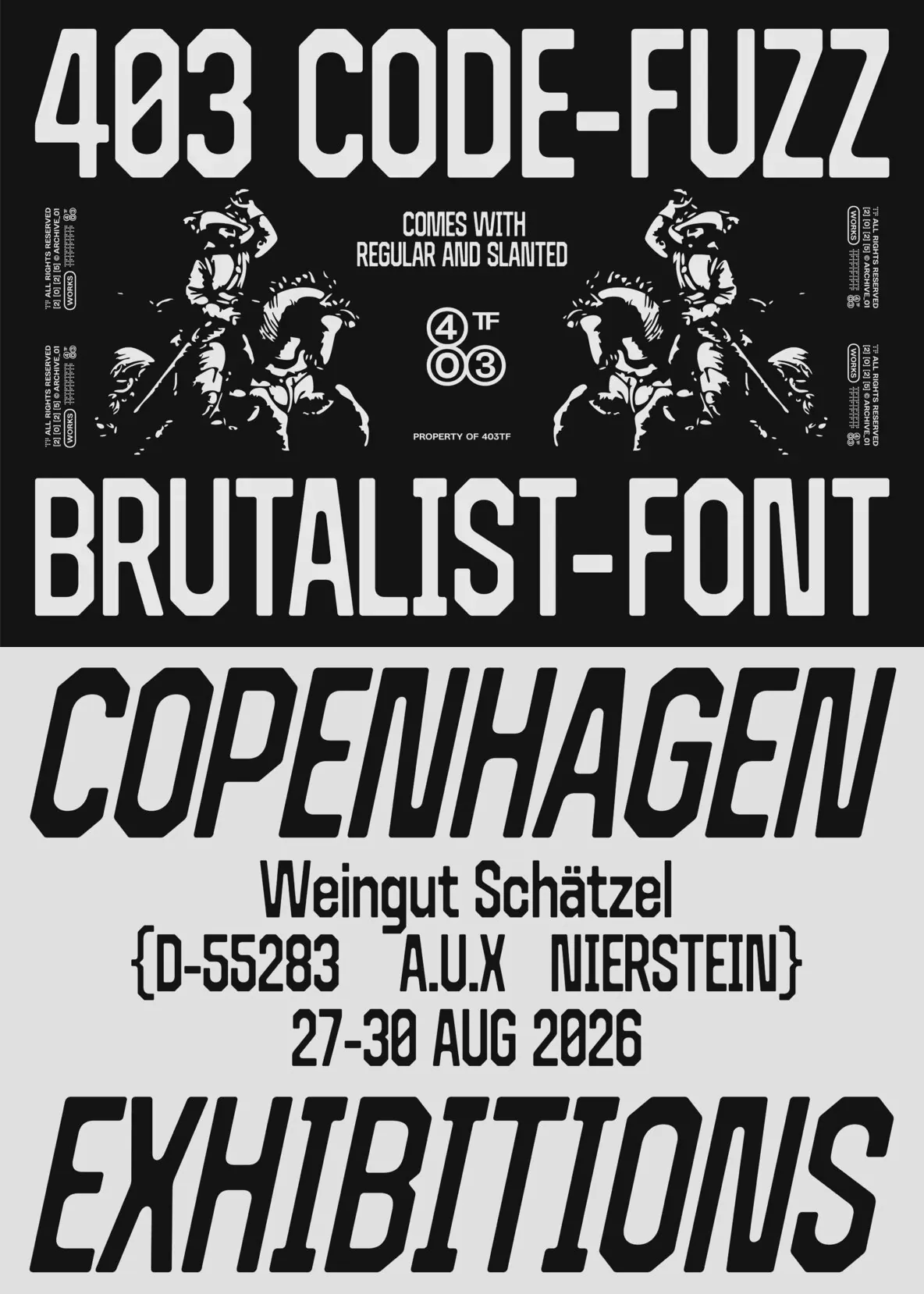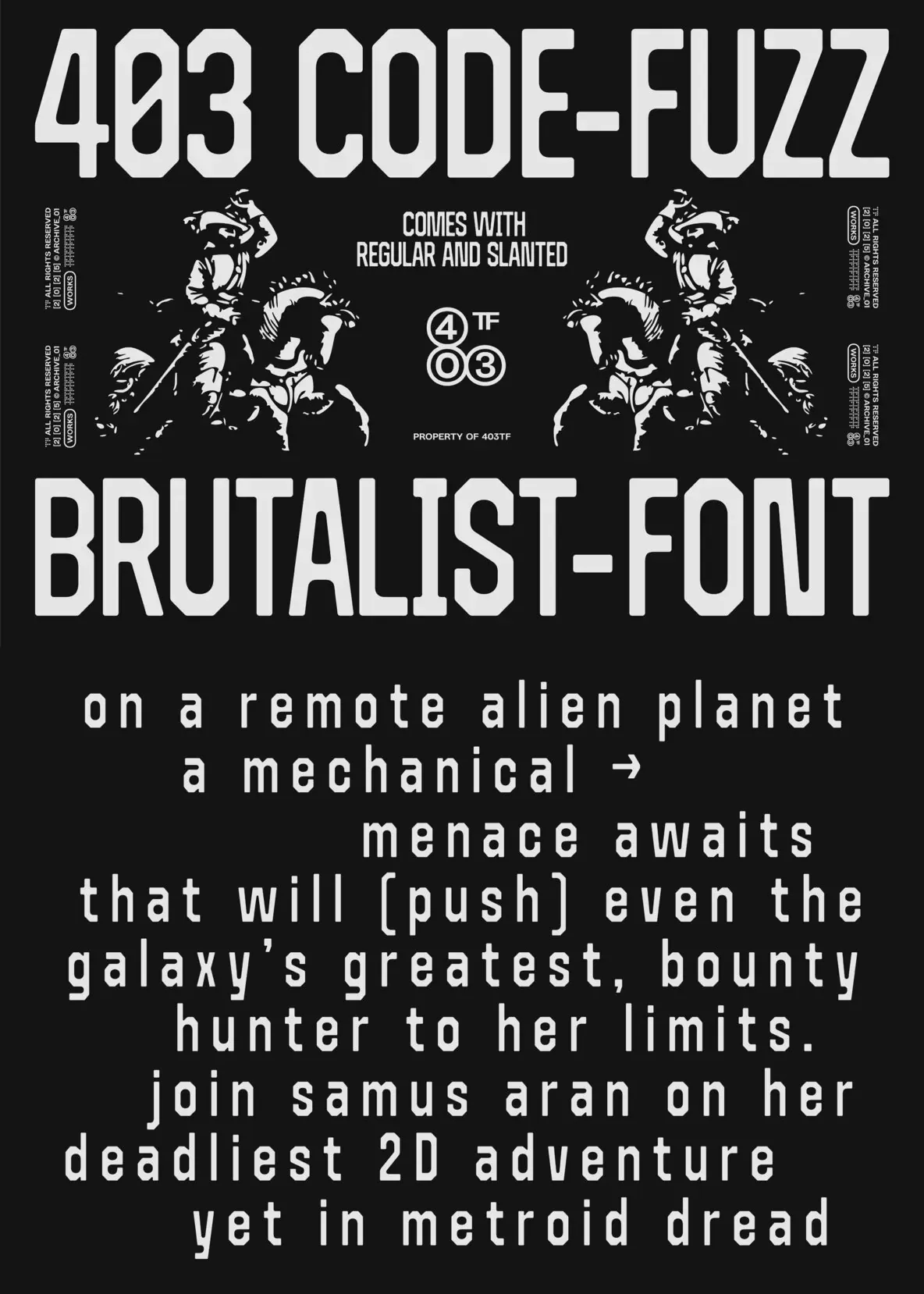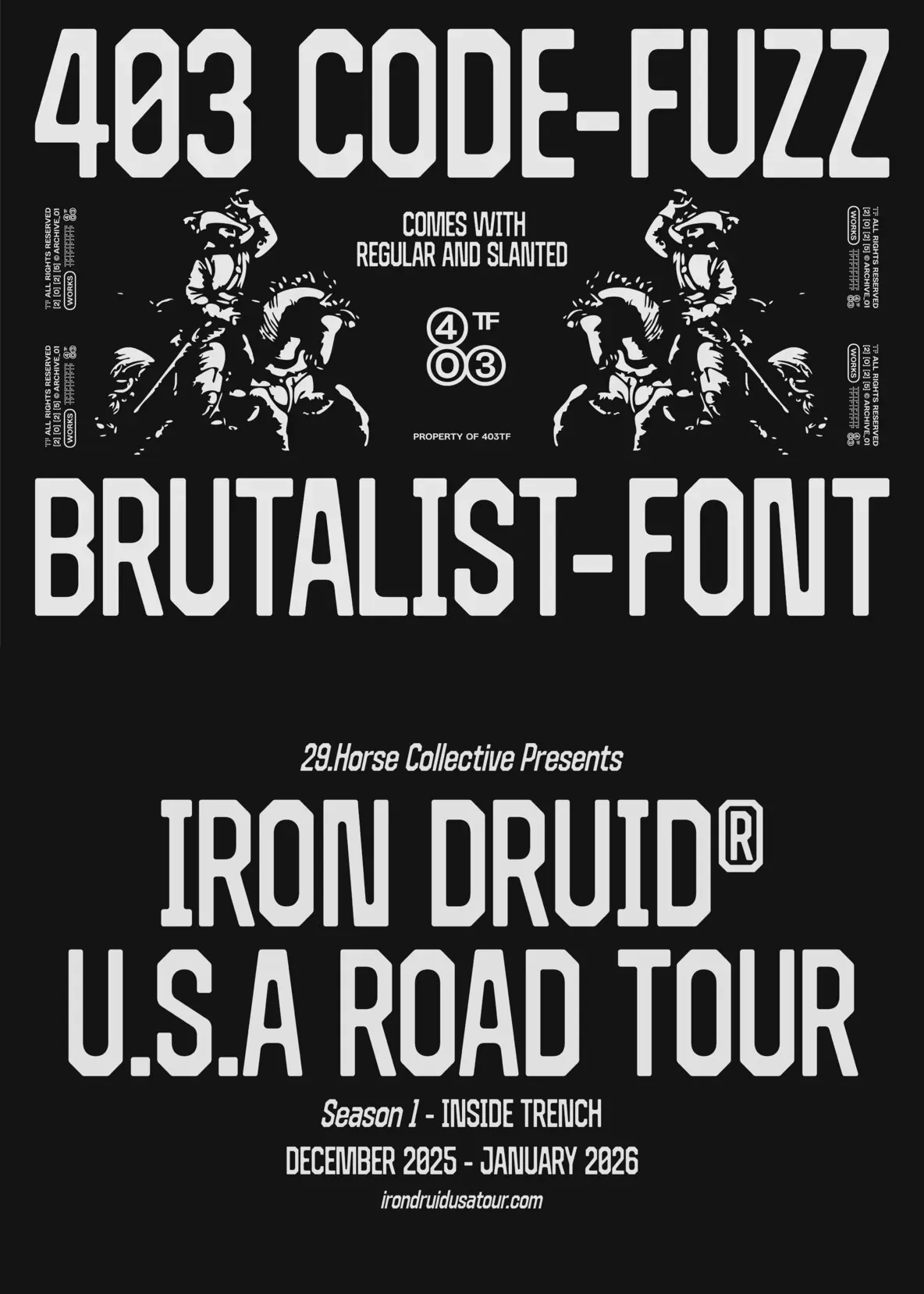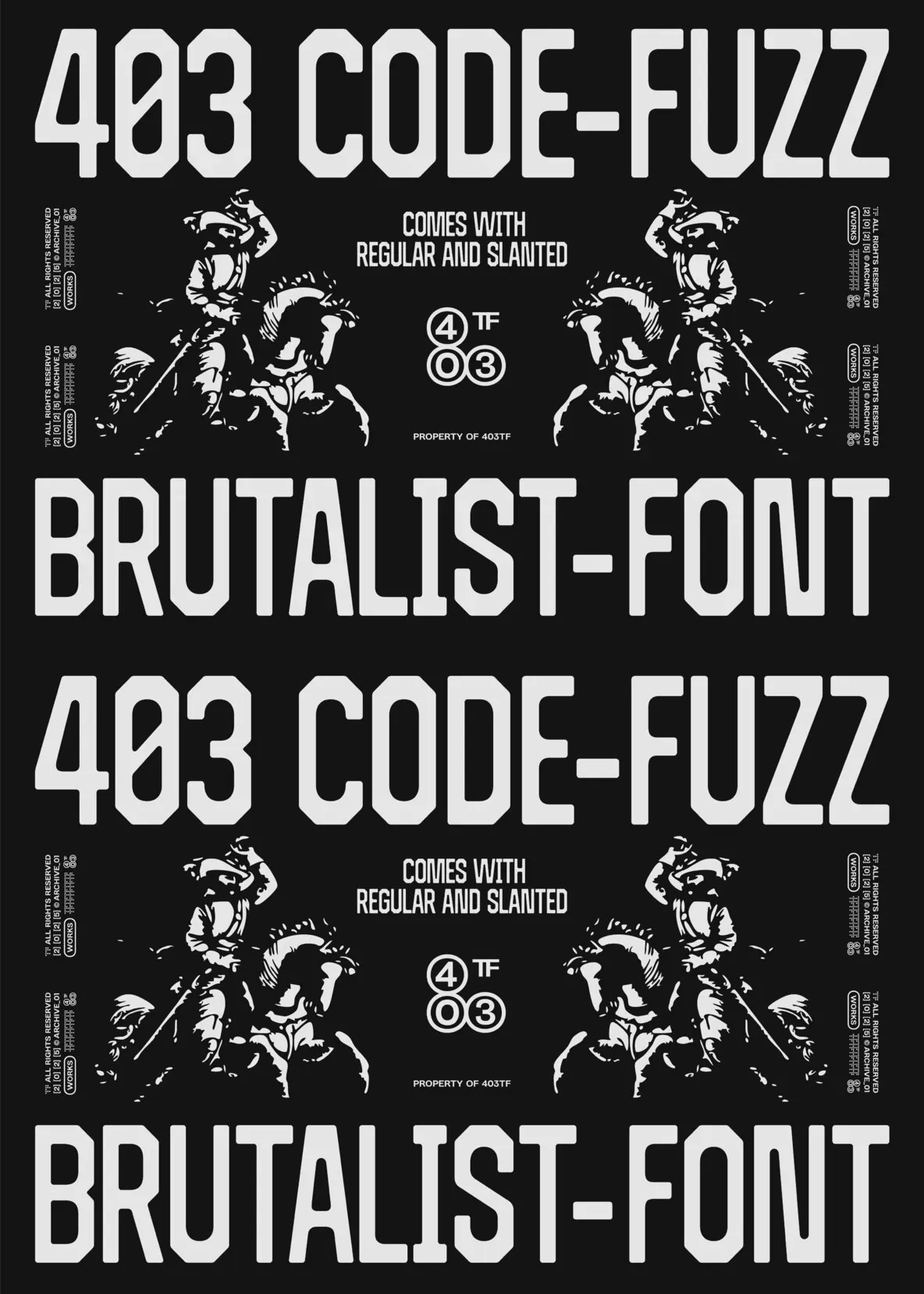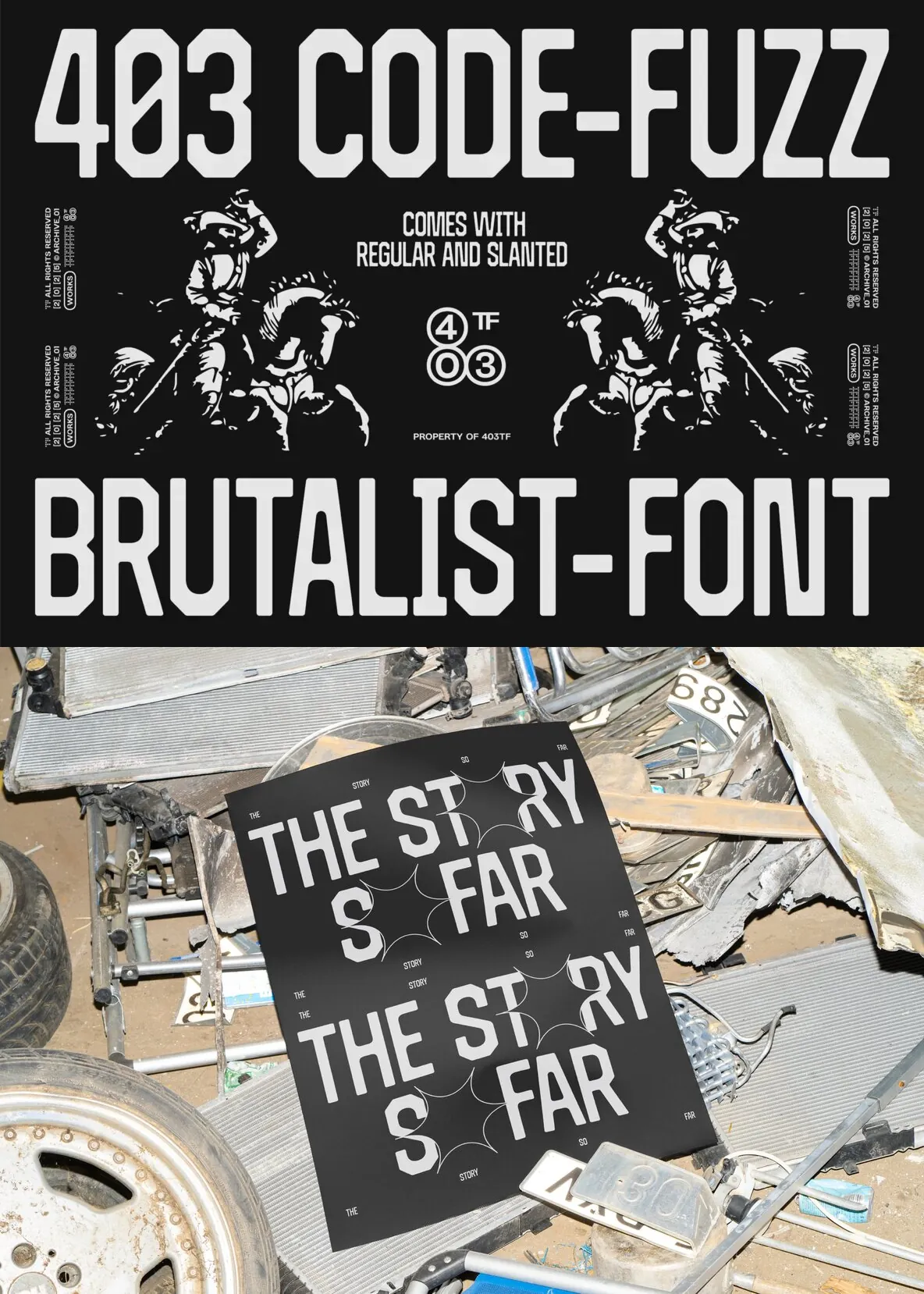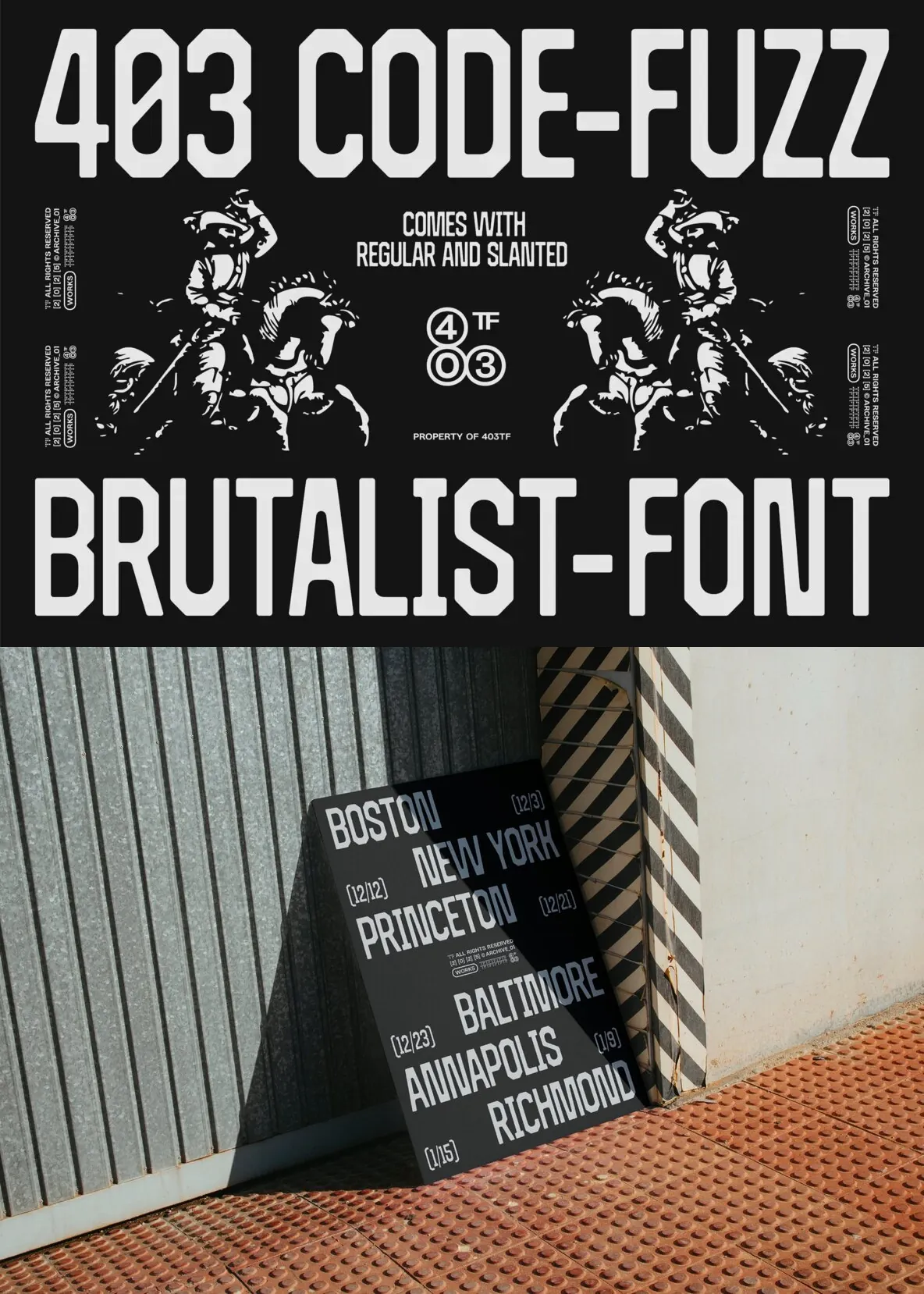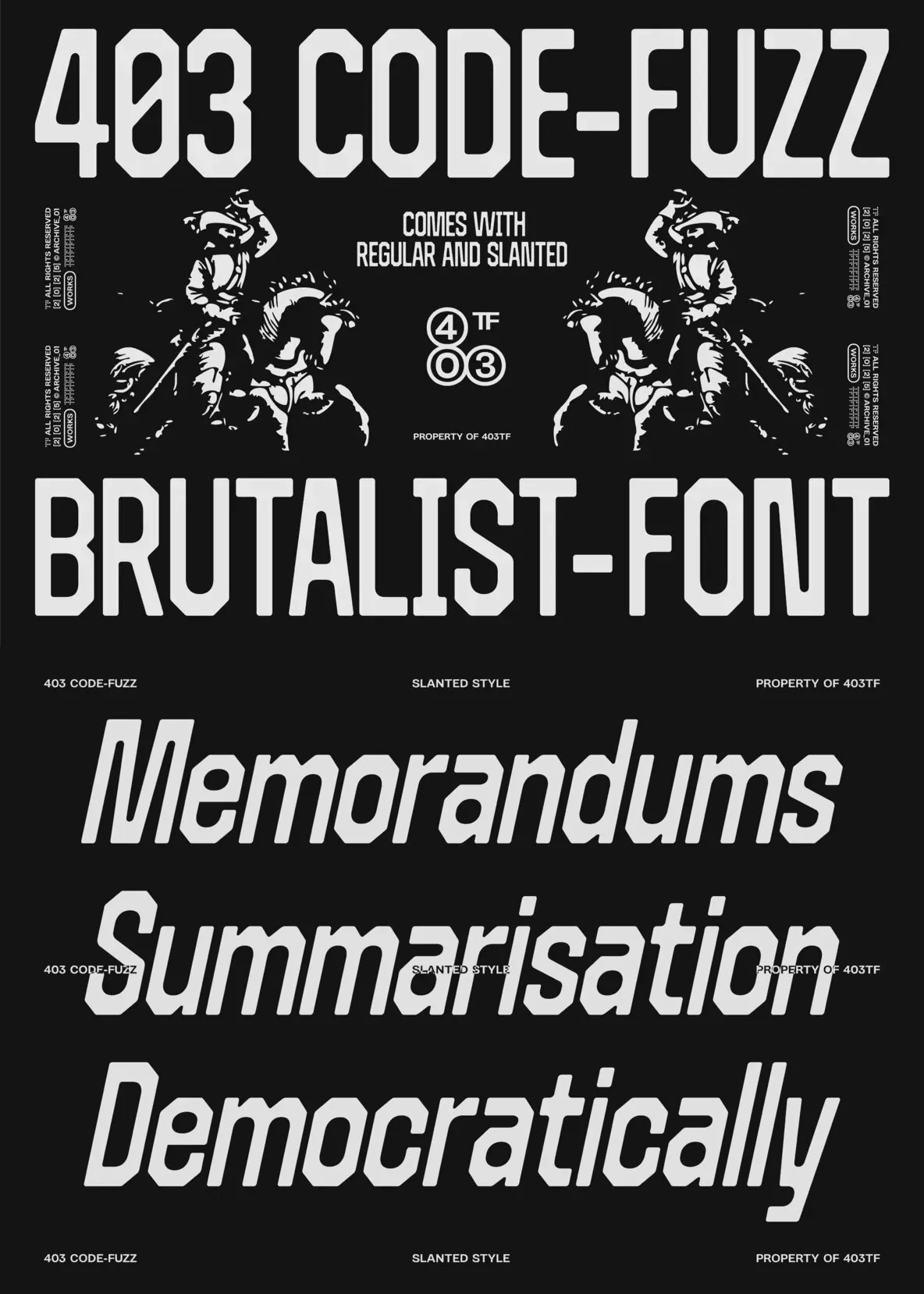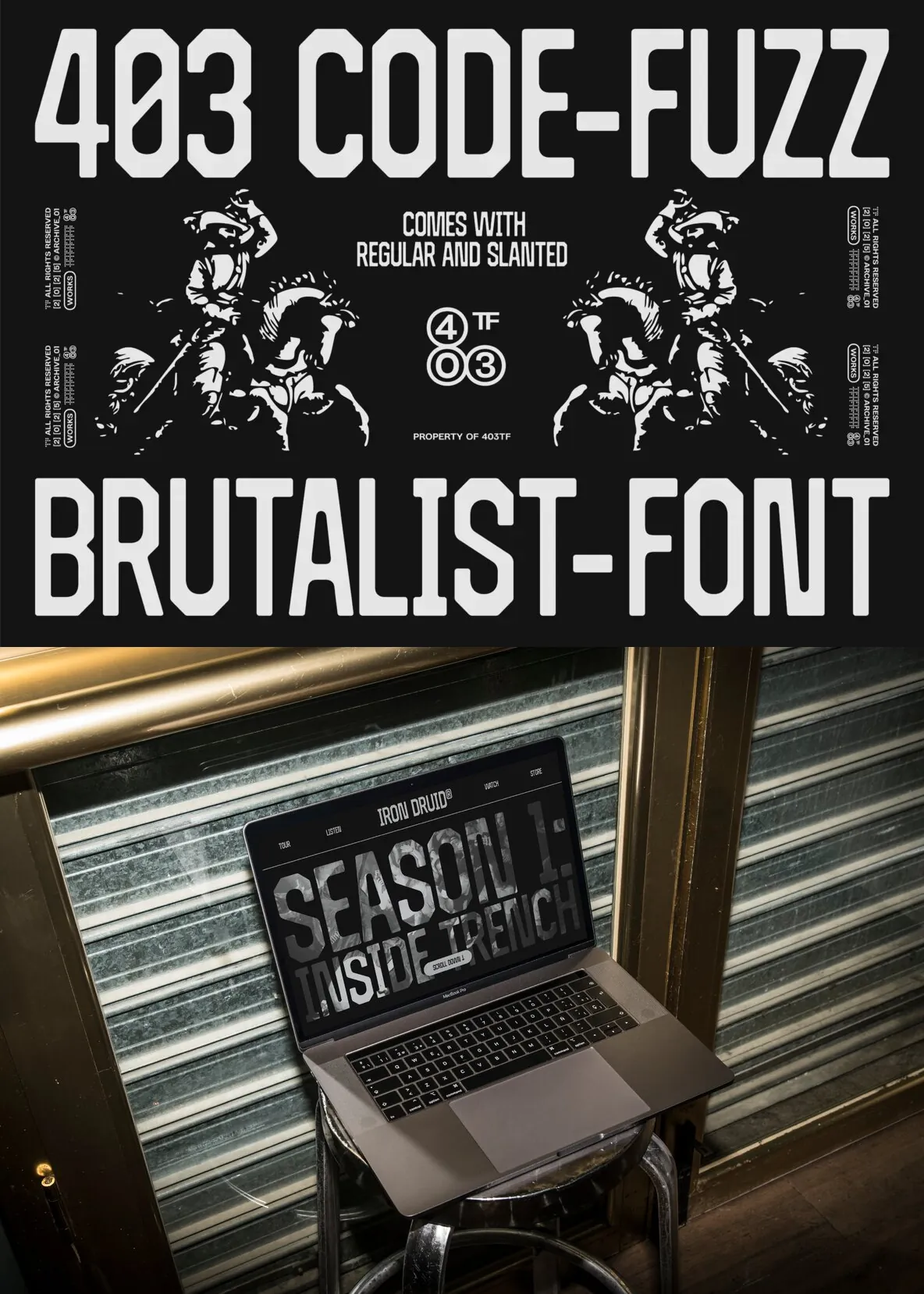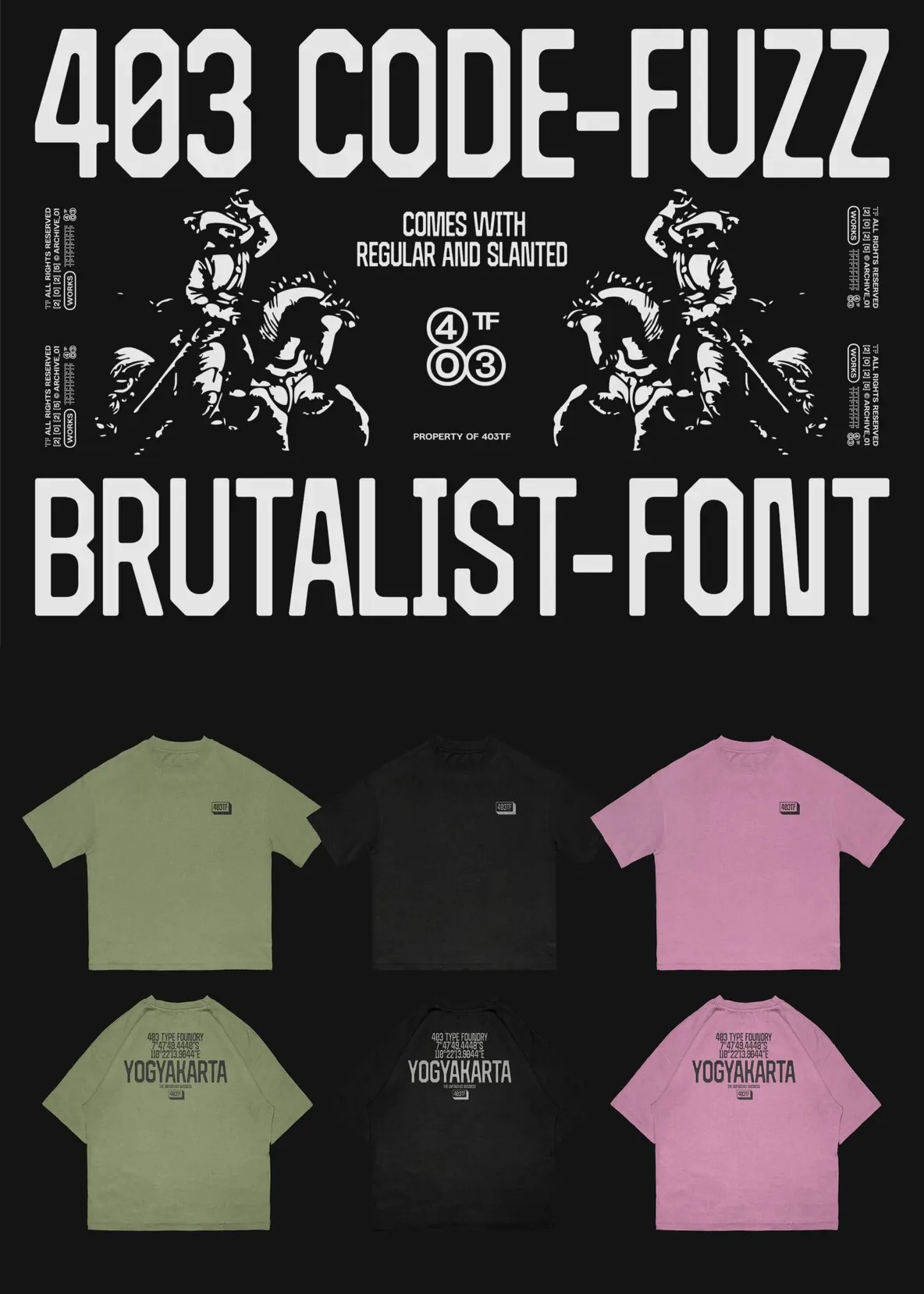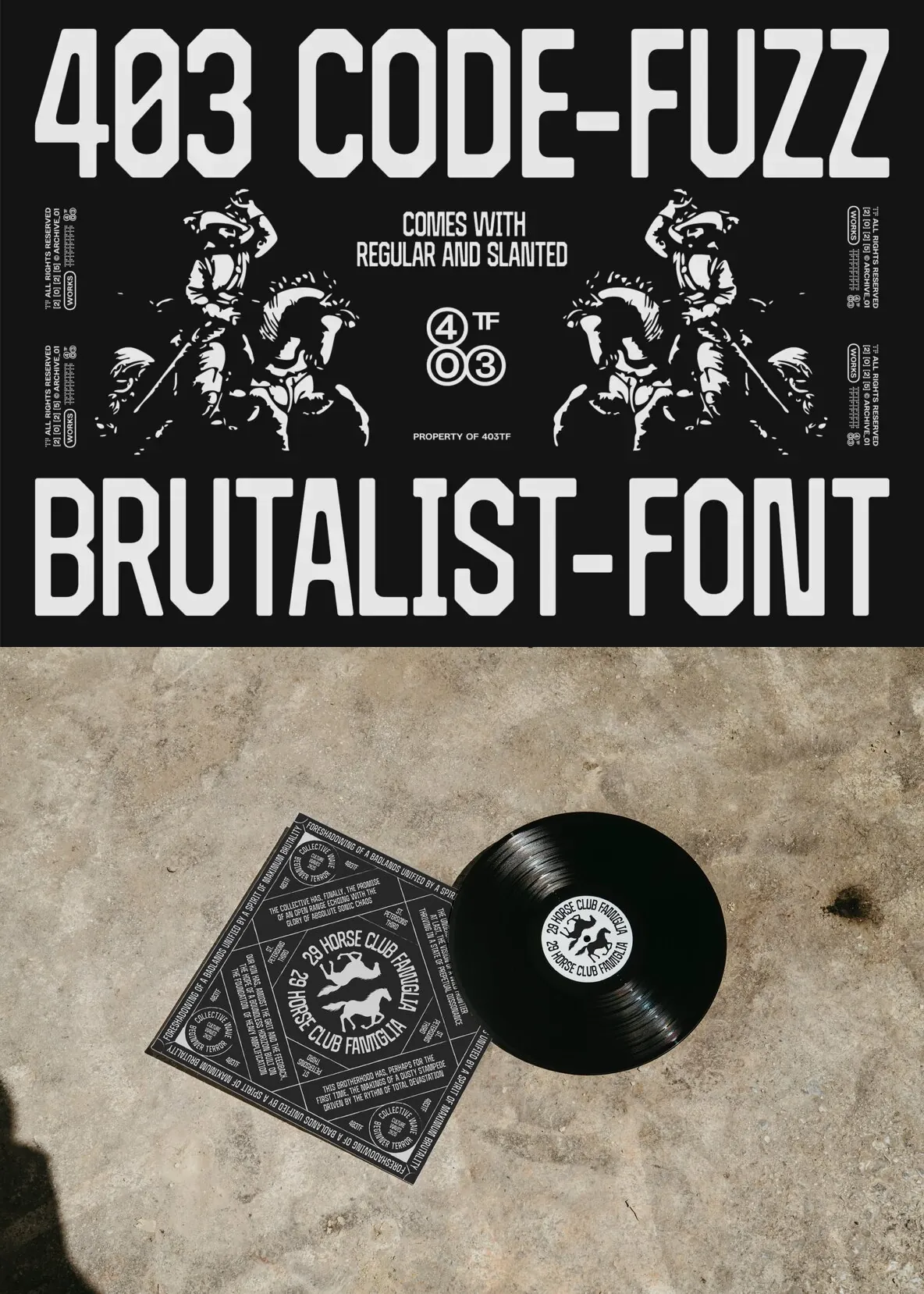
403 Code Fuzz — Stencil Authority, Terminal Bite
403 Code Fuzz is a typographic weapon built for the modern industrialist. It sits in the aggressive middle ground between retro-futuristic data terminals and heavy-duty shipping logistics. Jagged, chamfered edges and an unyielding block structure give it the blunt authority of a military stencil. This typeface feels engineered rather than drawn, and it reads like a visual system as much as a display font. It thrives in street-level grit and on-screen glow, where industrial typography needs to land fast and stay readable.
The design philosophy of 403 Code Fuzz is rooted in calculated friction. It uses strict octagonal construction reminiscent of vintage sports jerseys and warning signage, updated with a cyber-brutalist twist. In use, it can shift from a sleek, high-tech interface (as on the laptop display) to a distressed, grungy texture (as on the Iron Druid tour poster). The Regular cut stands firm like a concrete pillar. The Slanted cut adds fast, aerodynamic aggression for clear visual velocity.
Explicitly tailored for streetwear brands, electronic music culture, and utilitarian design, 403 Code Fuzz holds up in high-impact environments. Use it for Gorpcore apparel, techno rave flyers, large-scale industrial signage, and brutalist editorial layouts. Under the hood, it includes a robust set of OpenType and production-ready details for professional typesetting, UI/UX, and wayfinding. 403 Code Fuzz is built to cut through noise when your message needs hard edges and direct intent.